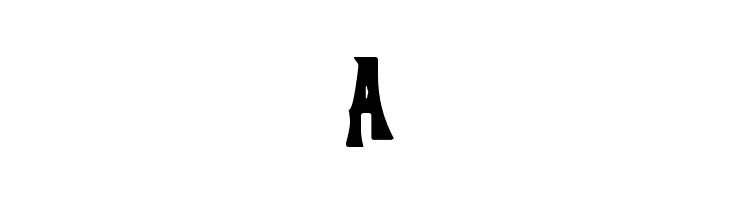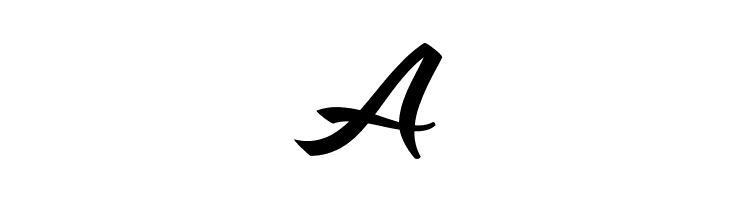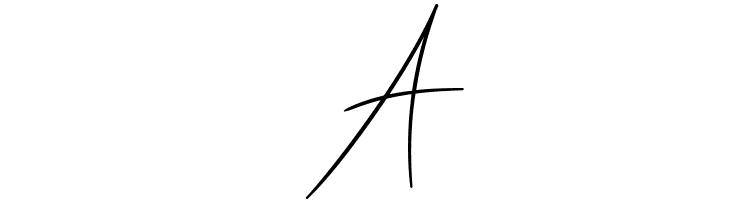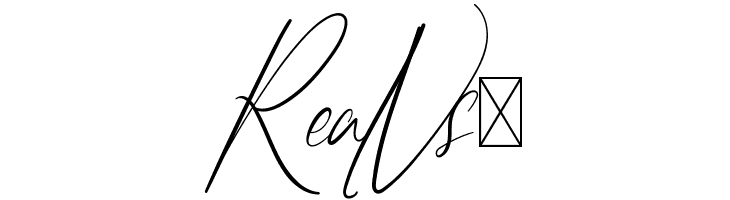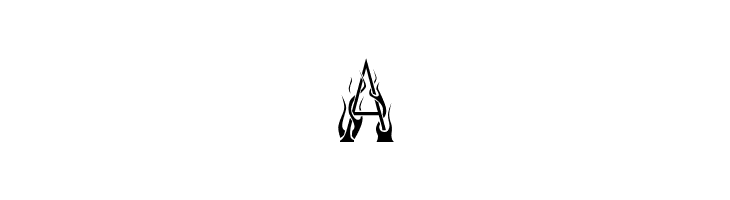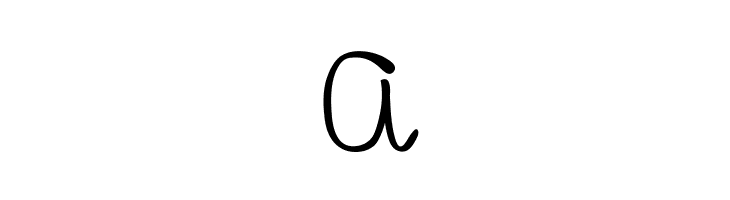
A bold, geometric font with a modern, digital aesthetic.
A delicate and flowing script font with elegant, cursive letterforms.
A modern, geometric font with rounded edges and a sleek, minimalistic design.
A bold, playful, hand-drawn font with tall, narrow characters.
A playful, collage-style font with eclectic, cut-out letter designs.
A bold, playful font with a whimsical and slightly gothic style.
Elegant and artistic script font.
A bold, playful font with decorative swirls and curls.
A whimsical and playful font with bold, swirling characters.
A playful, bold font with rounded strokes and a whimsical, retro-modern style.
A playful, handwritten script font with decorative elements and moderate stroke contrast.
A bold, graffiti-inspired font with a dripping paint effect.
A bold, dynamic script font with elegant loops and swashes.
A bold, fiery font with jagged, flame-like edges and a dynamic, energetic style.
A bold, jagged font with a distressed, grunge-like appearance.
A bold, jagged font with an edgy, distressed appearance.
A bold, vintage serif font with decorative elements and shadow effects.
A bold, flame-adorned font perfect for dramatic and impactful designs.
A bold, vintage serif font with strong, condensed letters.
A bold, playful font with a hand-drawn, dynamic style.
An elegant script font with flowing, interconnected characters and bold uppercase letters.
A playful, bold, hand-drawn style font with rounded, thick letters.
A playful, handwritten script font with interconnected letters and moderate stroke thickness.
A bold, high-contrast font with sharp angles and modern geometric elements.
A bold, slanted font with a dynamic and energetic style.
A playful, bold outline font with a lively and casual aesthetic.
A playful, bold, and handwritten-style font with rounded strokes.
A bold, brush-style font with dynamic and expressive strokes.